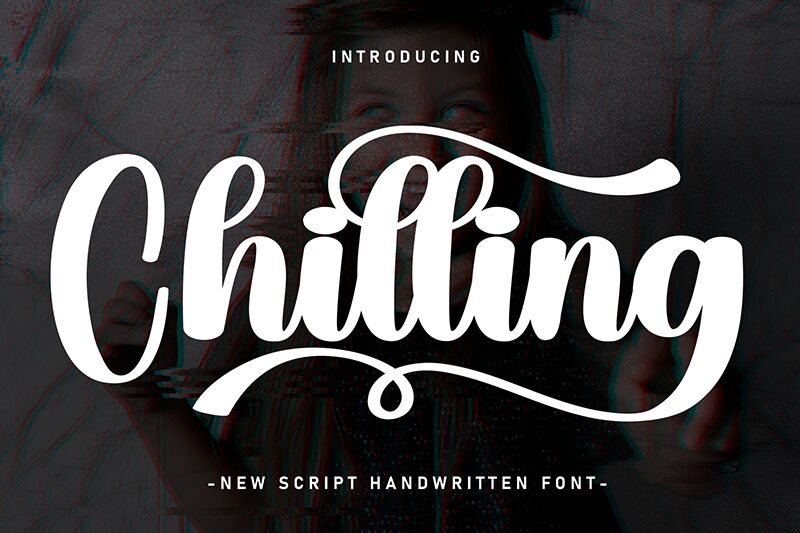
Chilling
Chilling font is a free brush font by Scratchones that balances casual elegance and modern script in one soft bundle. Flowing curves, relaxed lines, and overall gentle vibes make for an exciting light-hearted design using this font.
Design wedding invitations, T-shirt prints, branding elements, signatures, photography captions, novels covers and interior pages with elegant calligraphic directions.